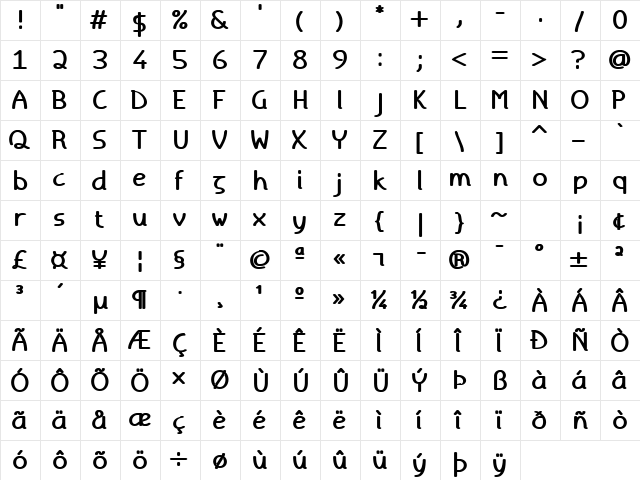
Torid Bold
| Foundry | Ruben Holthuijsen |
| Designer | Ruben Holthuijsen |
Design Context for Torid Typeface
Torid takes a measured approach to typography — its balanced proportions and neutral character make it a reliable workhorse for both digital and print work. Its bold stroke weight gives it real presence on the page.